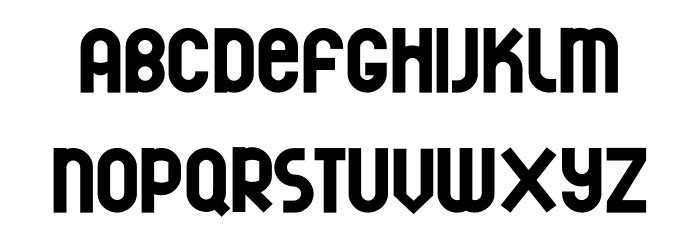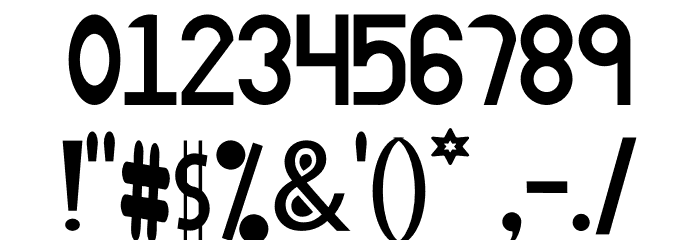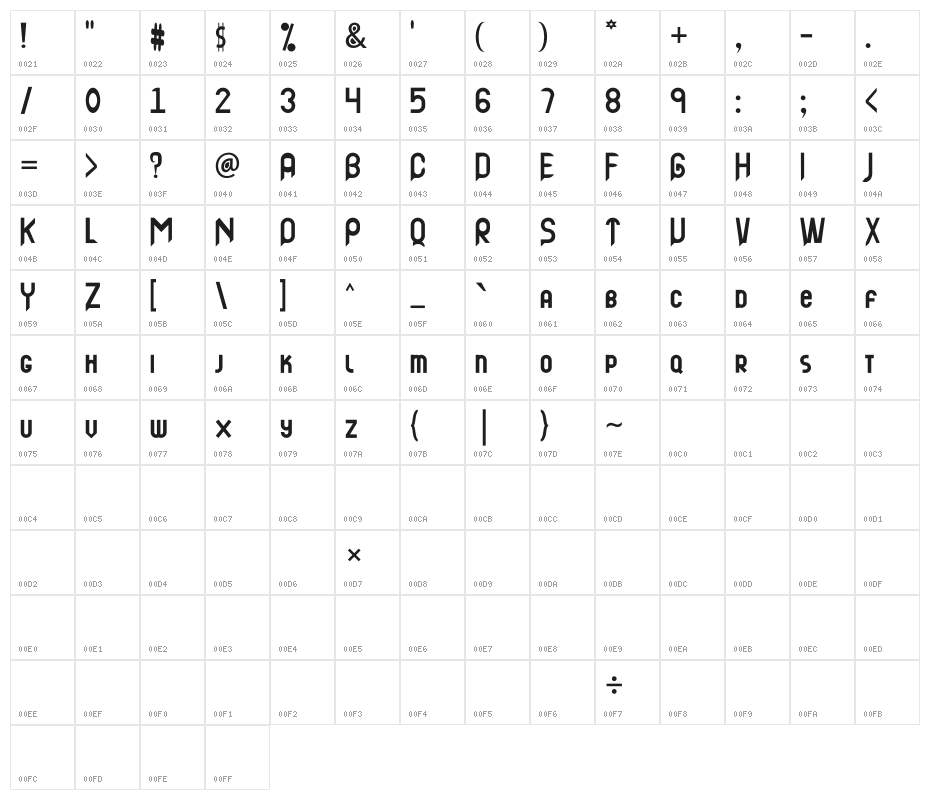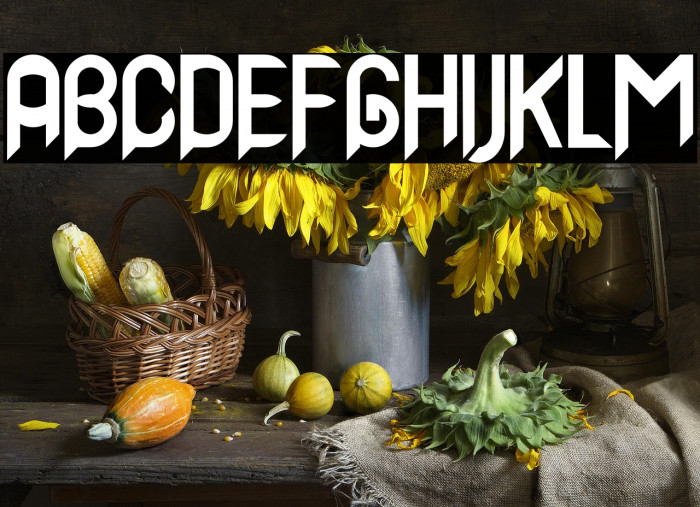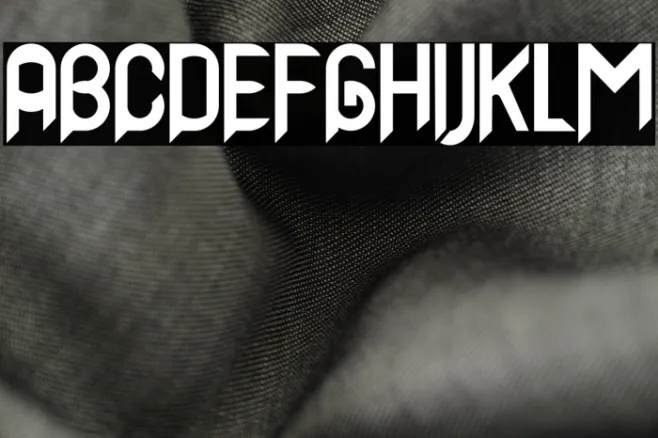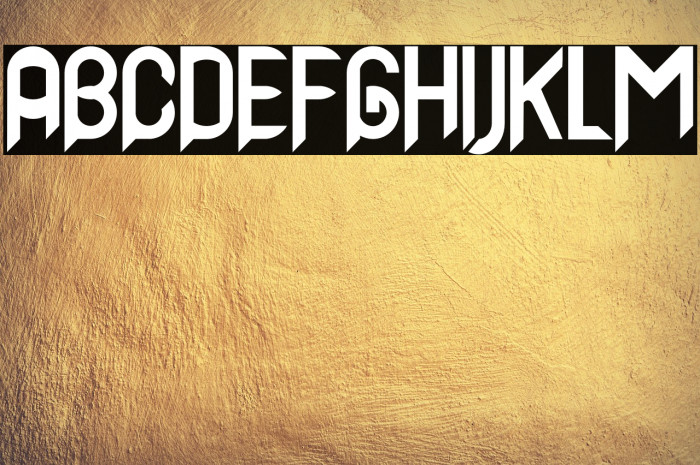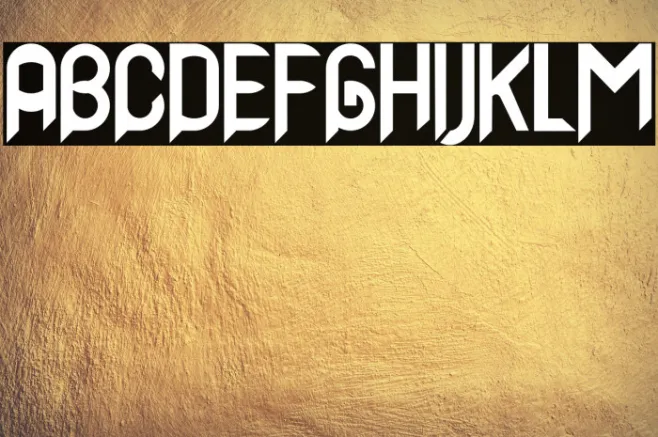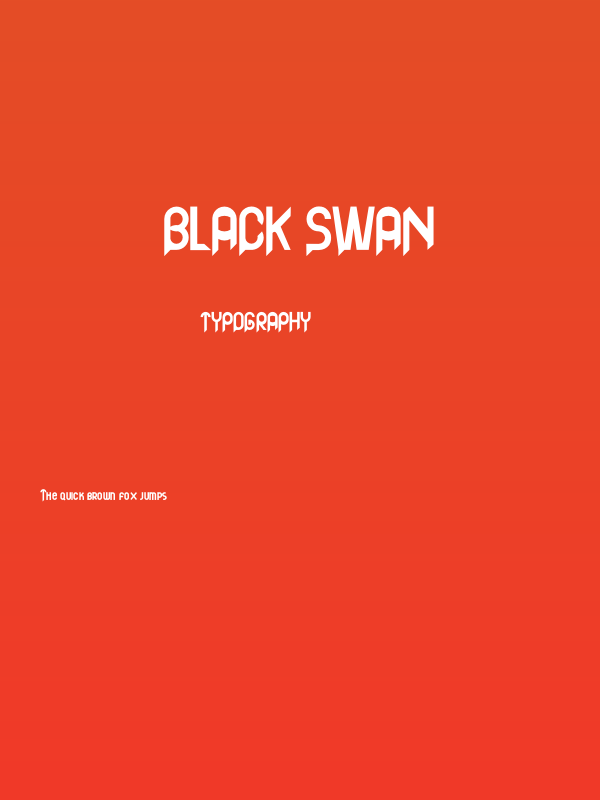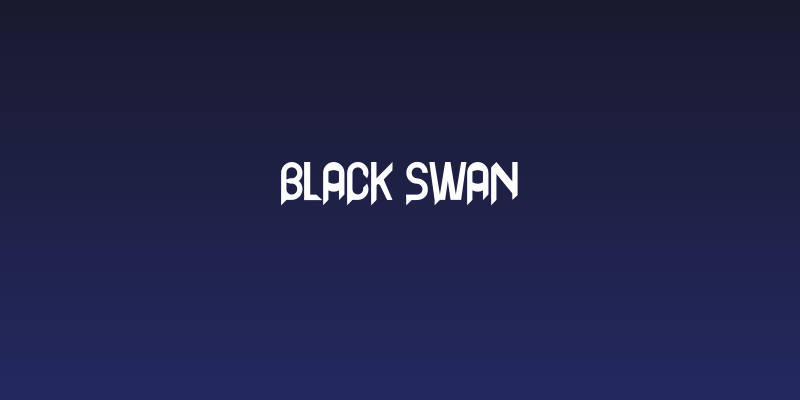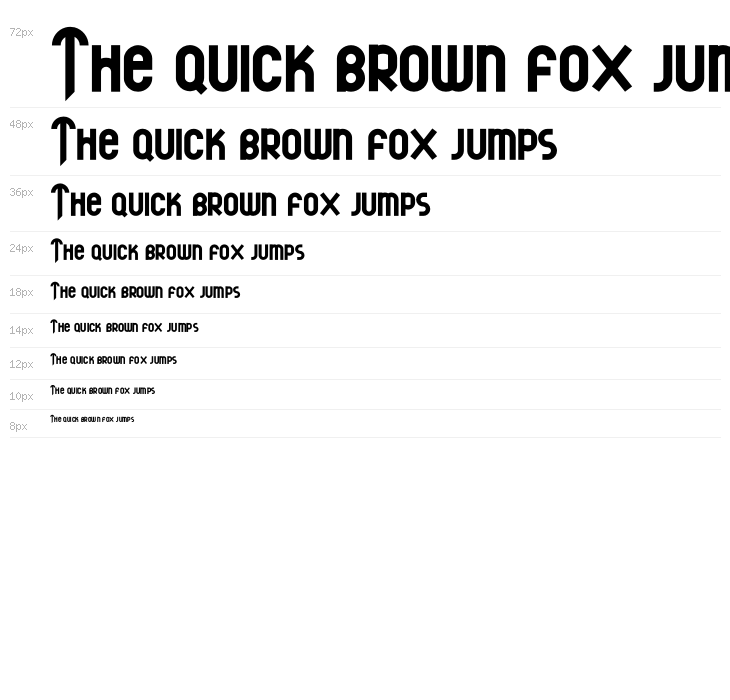
Black Swan Font
This font features a bold and striking design with sharp, angular edges and a geometric structure. The uppercase letters are particularly distinctive, with unique cuts and curves that create a sense of movement and energy. The lowercase letters maintain a similar style, ensuring consistency across text. Numbers and special characters are designed to match the boldness and angularity of the alphabet, making them stand out. The overall aesthetic is modern and dynamic, suitable for projects that require a strong visual impact.
A bold, angular font with a modern and dynamic style.
- Proposed Projects: Ideal for branding, posters, headlines, and any design that requires a bold statement.